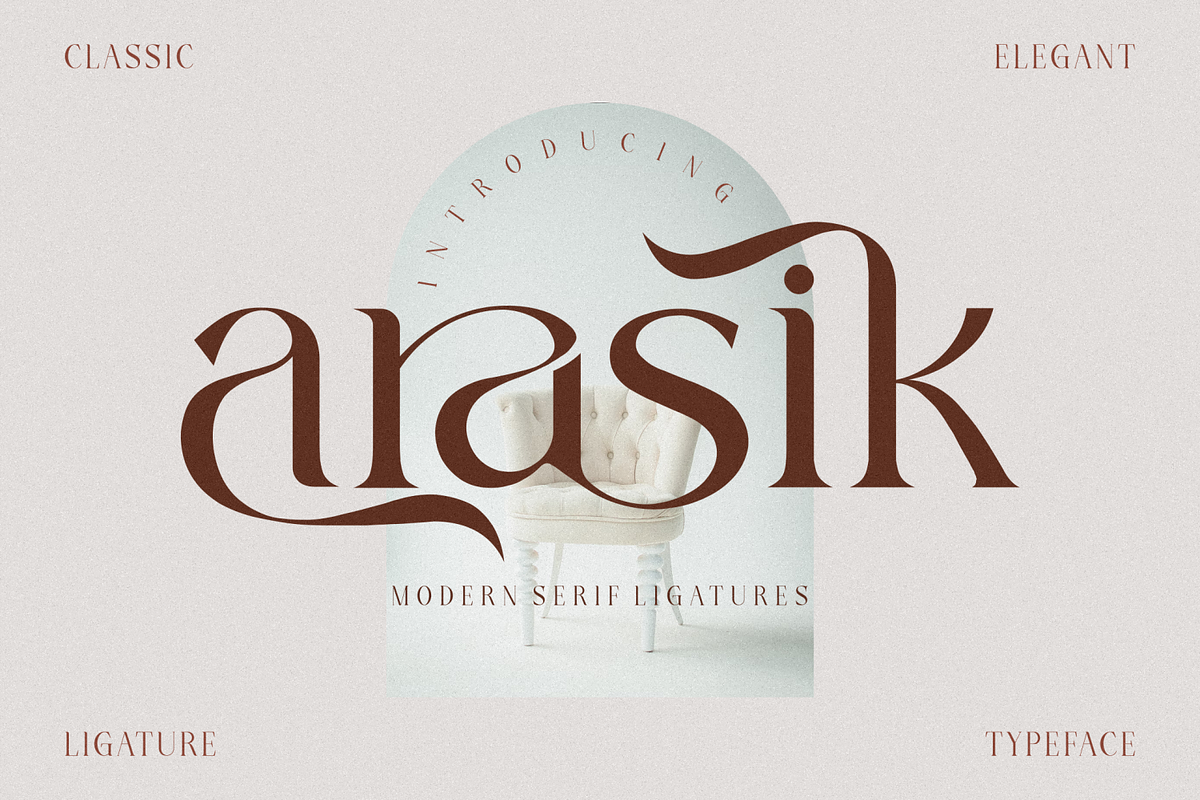
Arasik Font Free Download is a modern serif typeface featuring elegant ligatures and stylish details, perfect for creating high-end, editorial-inspired designs. With its refined curves, sharp serifs, and artistic letter combinations, Arasik is ideal for logos, branding, wedding invitations, fashion campaigns, and luxury packaging.
Crafted to balance classic sophistication with contemporary flair, Arasik includes uppercase and lowercase characters, numerals, punctuation, and a rich set of ligatures—allowing for beautifully fluid and customized typography.
Whether you're crafting a bold magazine headline or a chic brand identity, Arasik Font Free Download brings polish and personality to your design. Feel free to use it in personal or concept projects, and remember to purchase the appropriate license for any commercial use. Elevate your visual storytelling with the refined beauty of this modern serif ligature font.